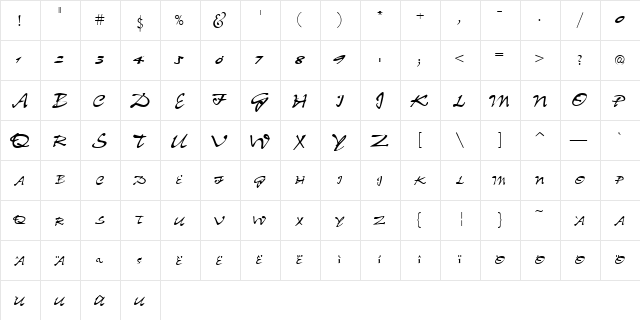
Base:Valentine Light
Design Context for Base:Valentine Typeface
Base:Valentine is a composed and adaptable typeface that performs quietly and consistently across a wide range of design contexts. Its slender proportions lend an understated elegance to any composition.
Pro Tip: Use Base:Valentine in both headline and body roles to test its range before committing to a single application.